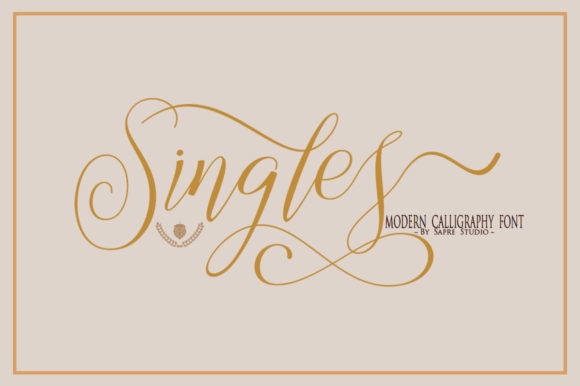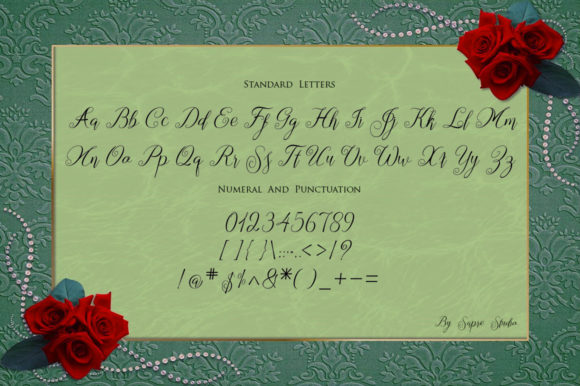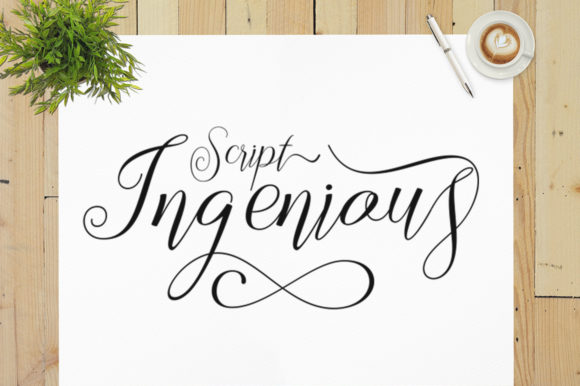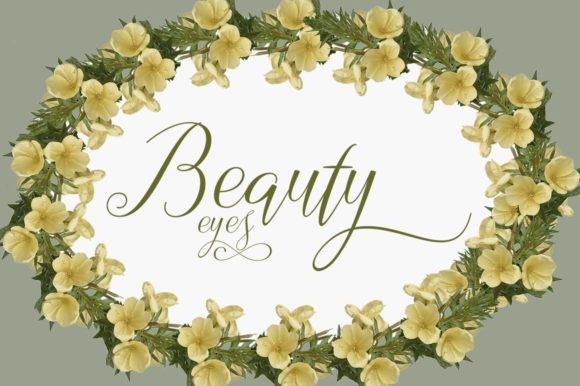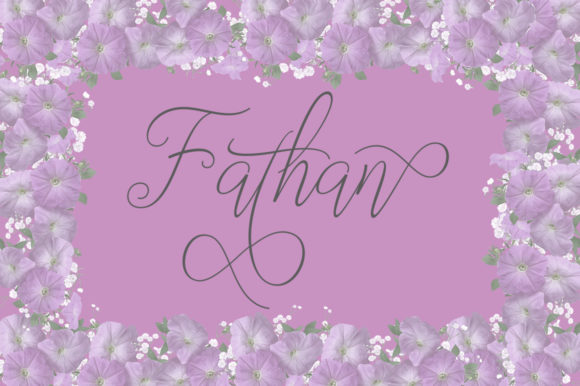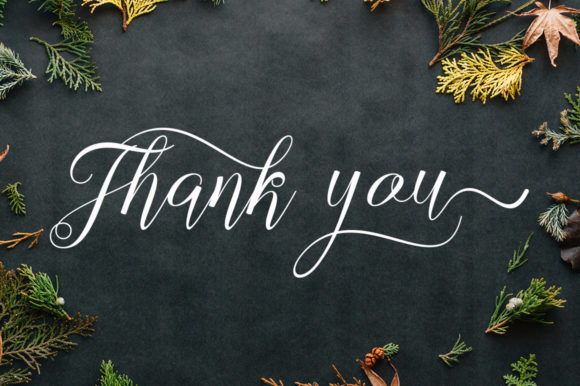
Singles Font
About Singles Font
The Singles is a lovely script font. It includes basic, fine lines which will bring a classic and elegant touch to your designs.
It can be used easily and simply and is perfect for every design which needs a luxurious touch.